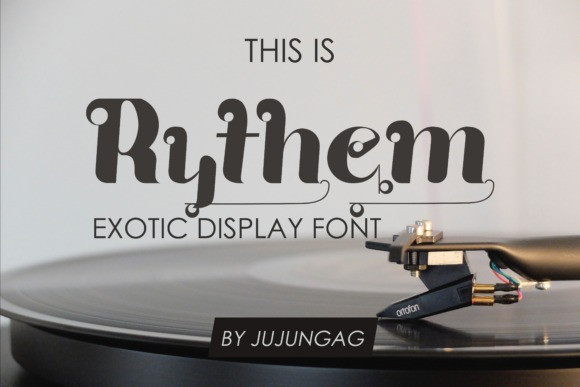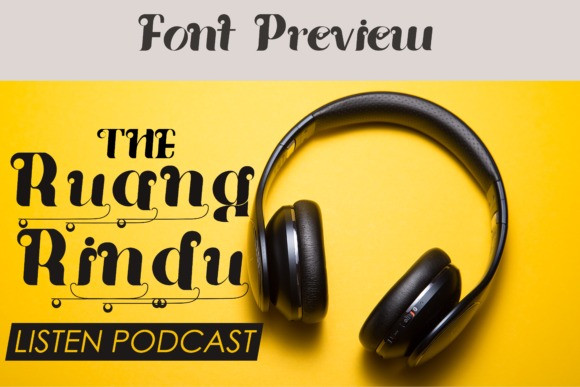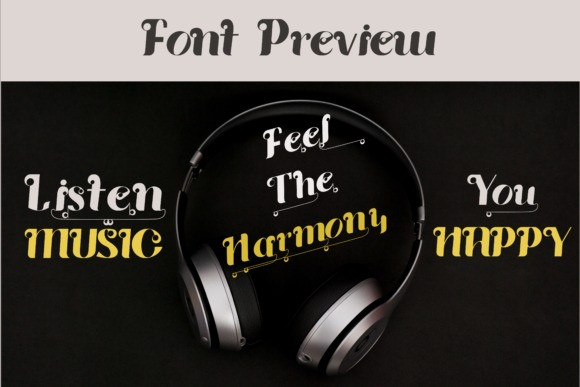
Rythem Font
Rythem is an experimental, yet elegant display font, perfect for taking your designs to the next level. Get inspired by its authentic charm, and turn any design idea into an eye-catcher!